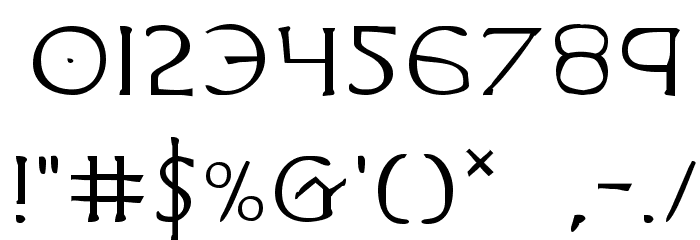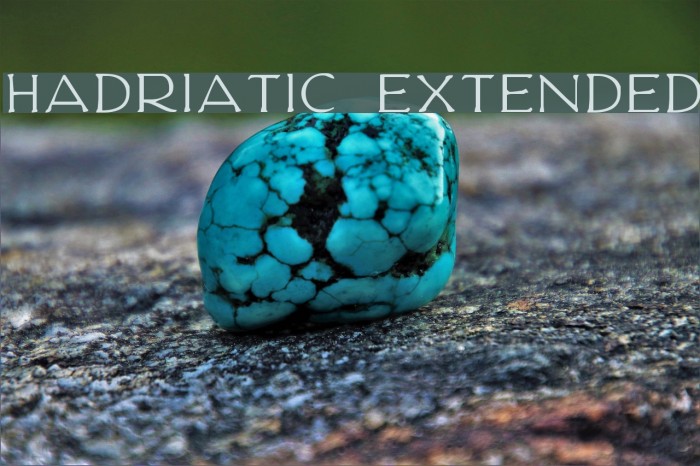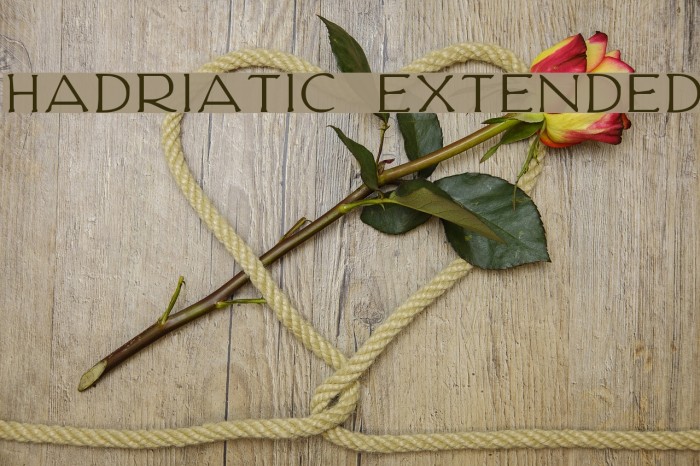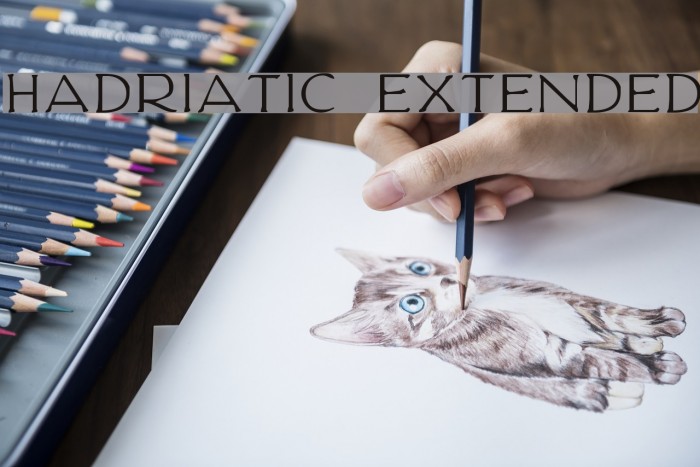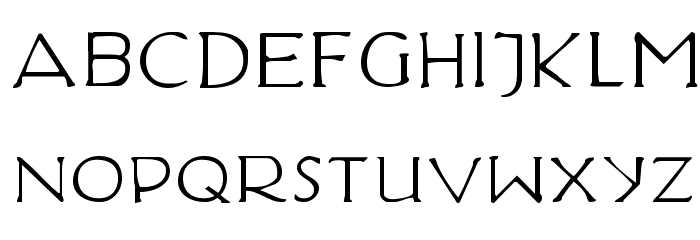
Hadriatic Extended Font
Hadriatic Extended Description
This font features a unique blend of modern and classic elements, characterized by its extended and slightly angular letterforms. The uppercase letters exhibit a distinct geometric style with sharp edges and clean lines, while the lowercase letters maintain a consistent flow with subtle curves. The numerals are bold and easily readable, complementing the overall aesthetic. Special characters are designed with a creative flair, adding to the font's versatility. The spacing between characters is balanced, ensuring readability across different sizes and applications.
| Width | Expanded |
| Use Case | Headlines, Logos, Branding |
| Proposed Projects | Ideal for branding, headlines, posters, and editorial design where a modern yet classic look is desired. |